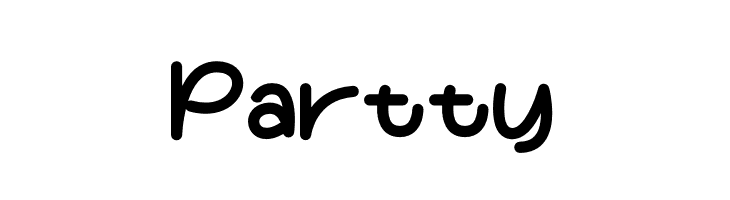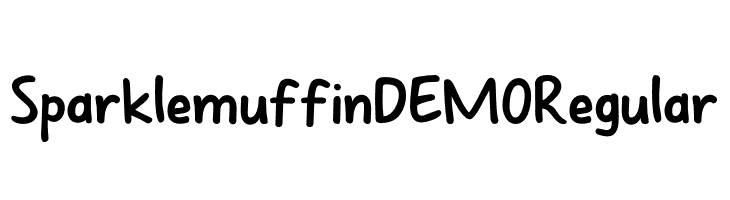
( Fonts by Fikry )
A playful, balloon-like font with bold, rounded characters.
( Fonts by Jadatype )
A playful, sketch-style font with bold outlines and diagonal hatching.
( Fonts by Jadatype )
A playful, rounded font with a hand-drawn, whimsical style.
( Fonts by D K )
A playful, hand-drawn font with rounded edges and a whimsical style.
A playful, bold outline font with a hand-drawn, cartoonish style.
( Fonts by Kong Font )
A whimsical, decorative font with playful elements in each character.
( Fonts by Andi Moz )
A playful, rounded font with unique circular cutouts for a fun and casual look.
( Fonts by Yoga Letter )
A bold, decorative font with star-filled characters, perfect for playful designs.
( Fonts by FactoryType )
A playful, polka-dotted decorative font with bold, rounded characters.
( Fonts by Skiiller Studio )
A playful, dotted outline font with bold, rounded characters.